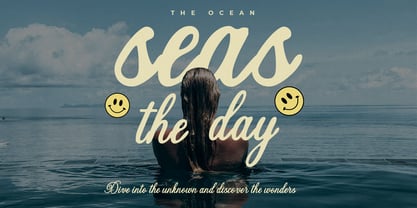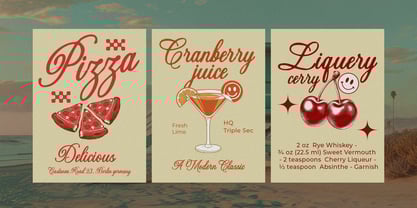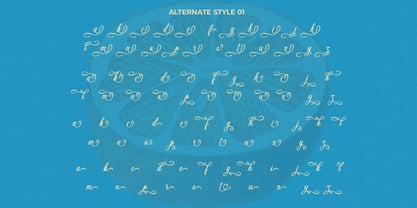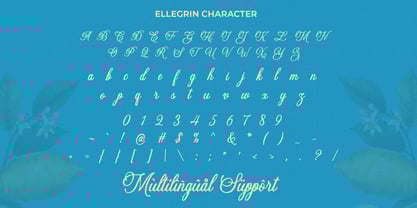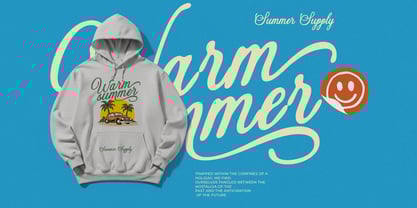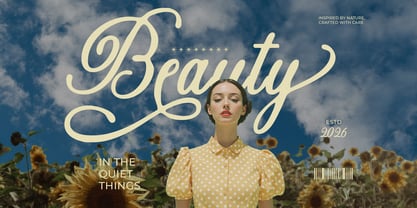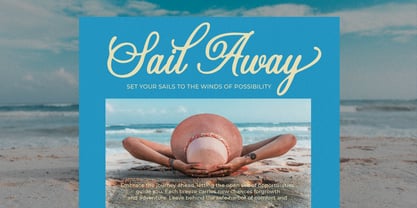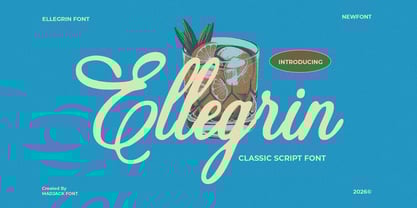
Ellegrin Script
by madjack.font
The Ellegrin Script Font Family was designed by Zaki Muhammad and published by madjack.font. Ellegrin Script contains 1 styles. More about this family
Meet Ellegrin, this bold, curvy script font evokes a retro feel and elegant charm. Perfect for eye-catching titles, artistic logos, creative branding, and playful posters, its handwritten style adds a personal and expressive touch to any design project. Ideal for designers looking to create a fun and unique impression. Font Features: Capital Letters Lowercase Letters Numerical & Multilingual Support Ligatures Alternative Styles with new Alternate Characters and swash styles added.
Designers: Zaki Muhammad
Foundry: madjack.font